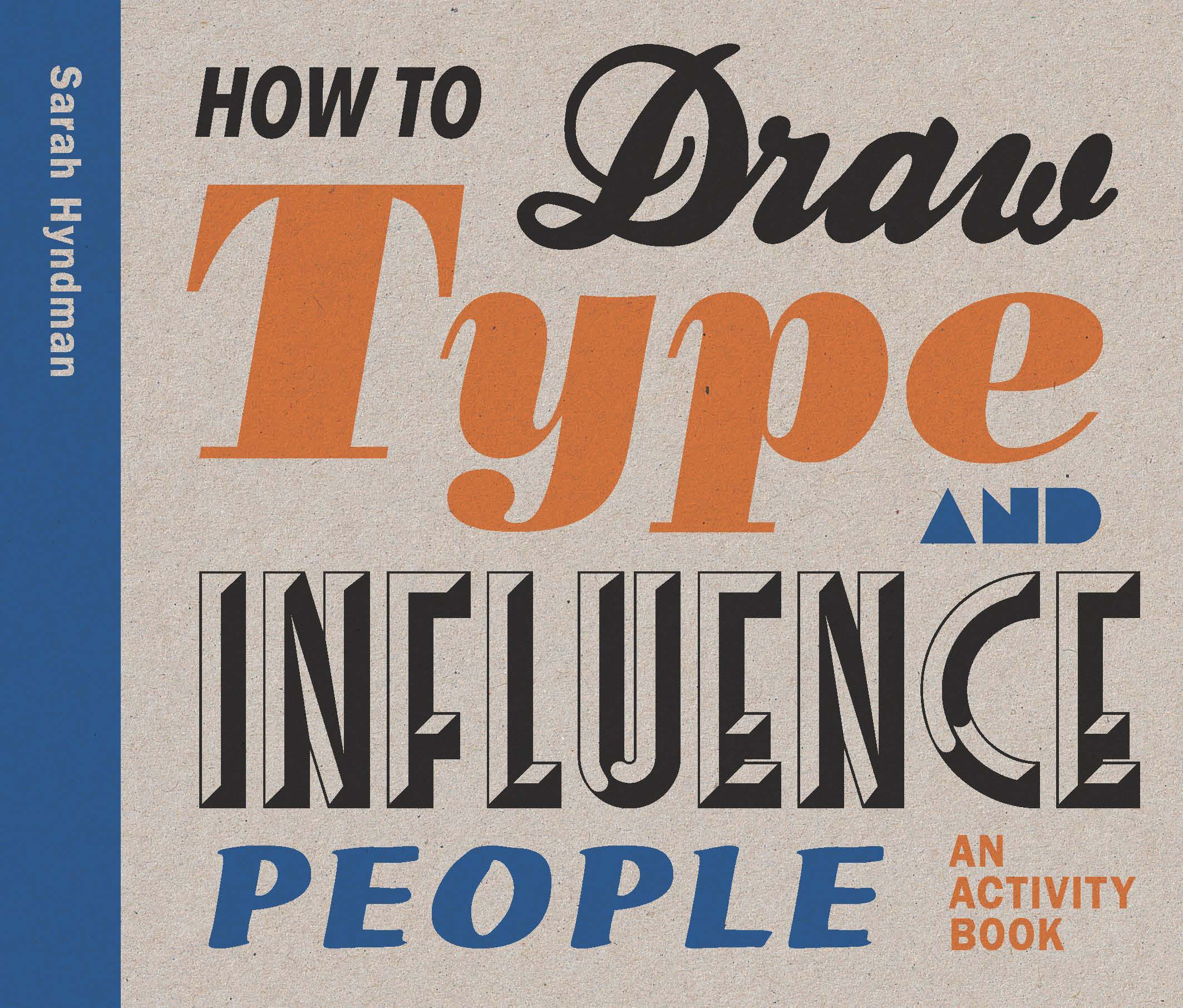
How to Draw Type and Influence People: An Activity Book
We are all type consumers and interact with type in our everyday lives. Typefaces in all shapes and sizes evoke an emotional response and trigger associated memories before we've even read the words.
How to Draw Type and Influence People shows how we use type to understand different messages. Each typeface is introduced and explained and then creative exercises show the reader how to draw each font and invite them to explore the associations evoked by the styles, to reveal why they have come about and how to create their own versions.
Ideal for all those who work with type daily, this book provides an accessible way in to the world of typefaces, for the general reader, but also graphic designers who want to explore fonts in more detail and design their own letterforms.